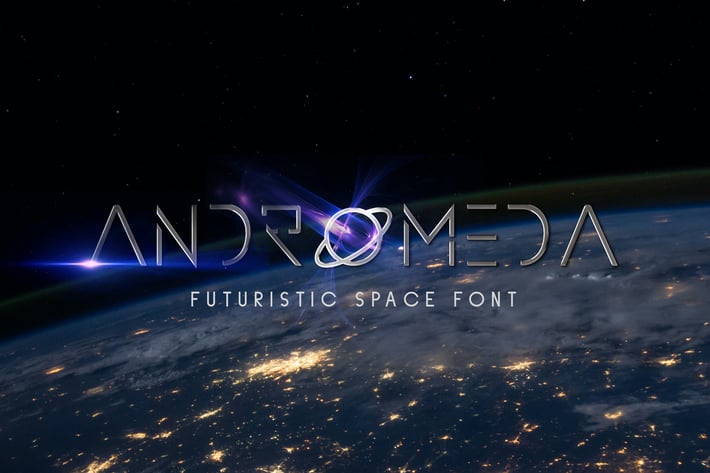
Andromeda - Futuristic Space Font
Introducing Andromeda, is a Futuristic Space Font has many purpose and suitable for badges, logotype, movies, tagline, space logo, space event, space education, advertising and much more
- Available Ligatures and Alternates
- Available Multi Language